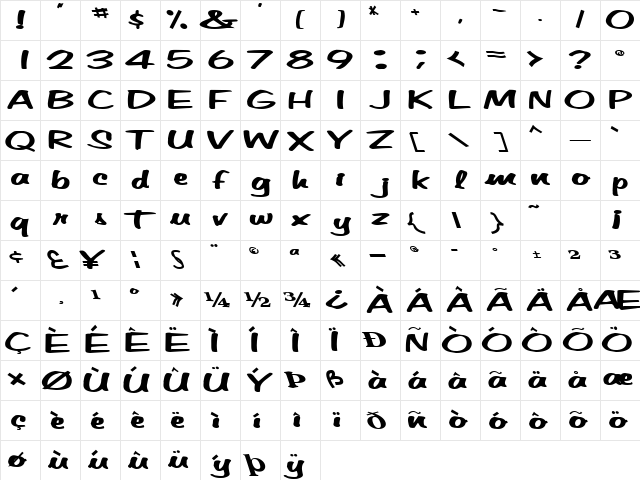
PaddedCell65 Bold
Design Context for PaddedCell65
PaddedCell65 is a composed and adaptable typeface that performs quietly and consistently across a wide range of design contexts. Its bold stroke weight gives it real presence on the page.